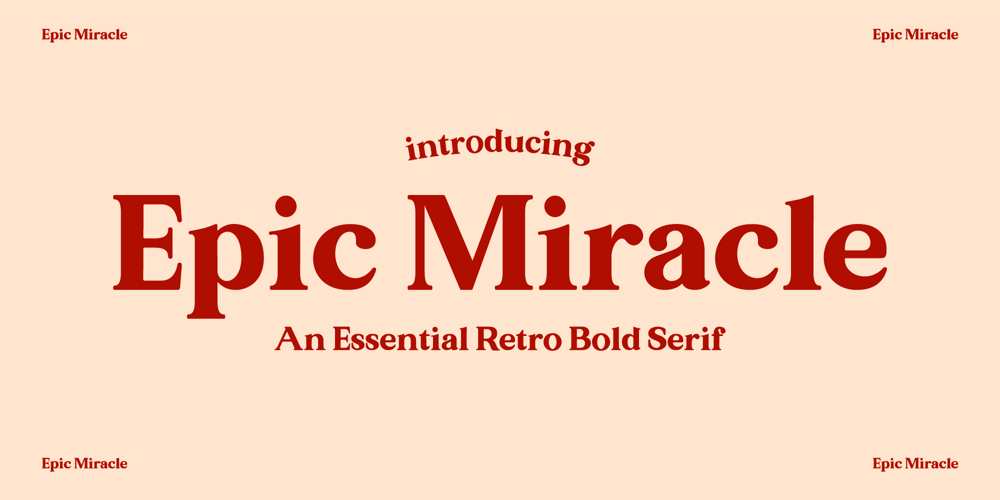
Epic Miracle Font Family was designed by Zak M and published by Prestige Artsy Studio. Epic Miracle contains 1 styles and family package options. Epic Miracle is beautiful rounded bold retro serif with a 90s touch. A great serif that works beautifully in modern designs. You can definitely create amazing logos, headings, apparel designs and more. Epic Miracle is an essential font for branding as well if you want to go BOLD.I can’t wait to see what you can create with Epic Miracle!